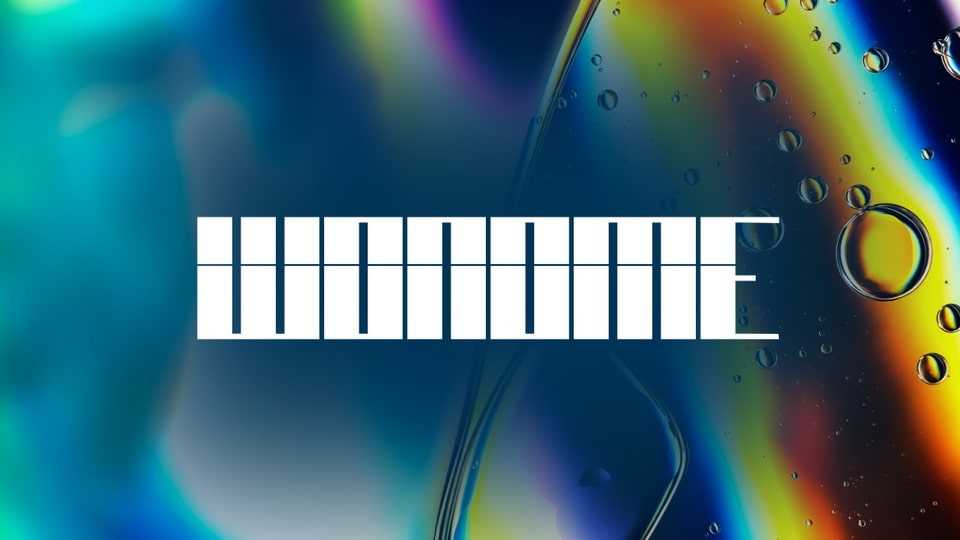
Download Wonome font, an ultra contrast typeface designed especially for display purposes or even brand identity and logos. Use Wonome font for headlines, posters, visual identity, just anything that needs to stand out.
Designer: ffeeaarr design